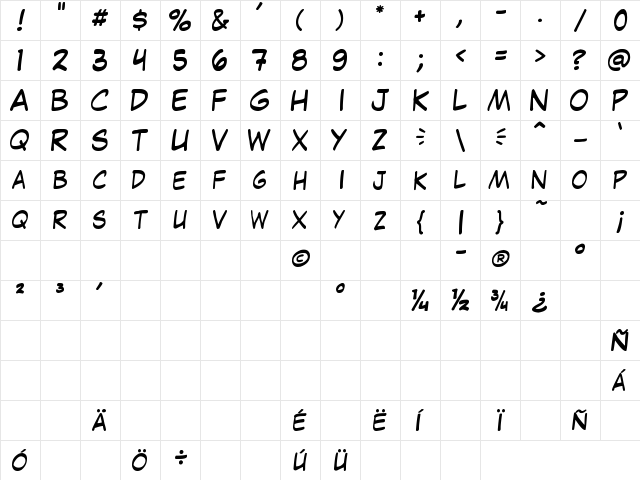
Jaws Comic Pro JY Regular
| Foundry | Laffayette Systems |
| Designer | Laffayette Systems |
Design Context for Jaws Comic Pro JY Typeface
Jaws Comic Pro JY has an approachable, lighthearted character — its loose, expressive forms are well-suited to children's content, casual branding, and fun-first design.
Well-suited to food and beverage brands with personality, educational materials, and fun-forward identities.
Font Pairing: Pairs well with a rounded or humanist sans for body copy, maintaining the friendly tone without relying on Jaws Comic Pro JY to carry extended reading.
Pro Tip: Use Jaws Comic Pro JY at larger display sizes where its expressive character can land. Pair with a clean, simple sans for body copy to maintain readability.